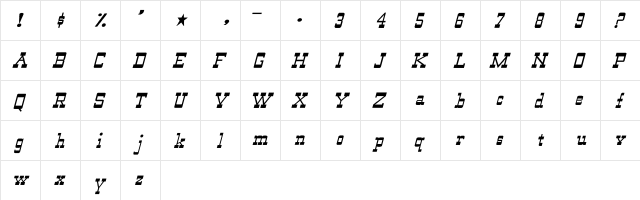
WildWest-Normal Italic Regular
Design Context for WildWest-Normal Italic Typeface
WildWest-Normal Italic takes a measured approach to typography — its balanced proportions and neutral character make it a reliable workhorse for both digital and print work. The slanted form adds forward momentum and visual energy.